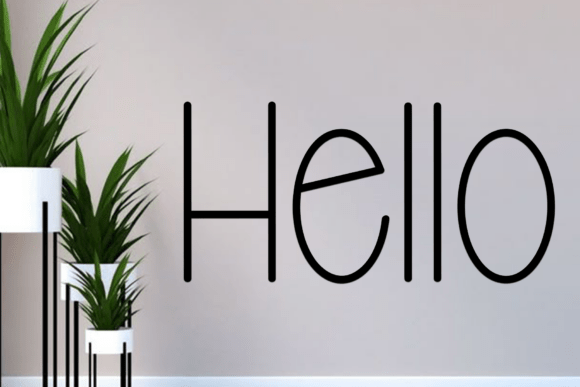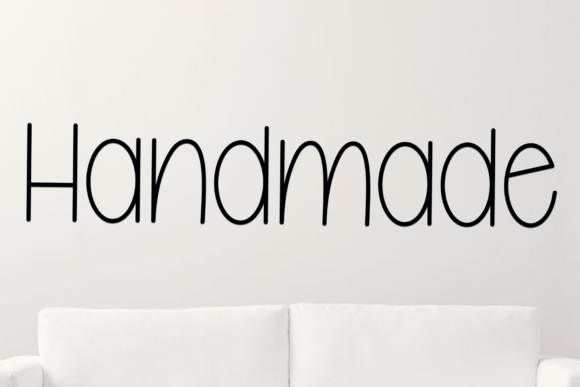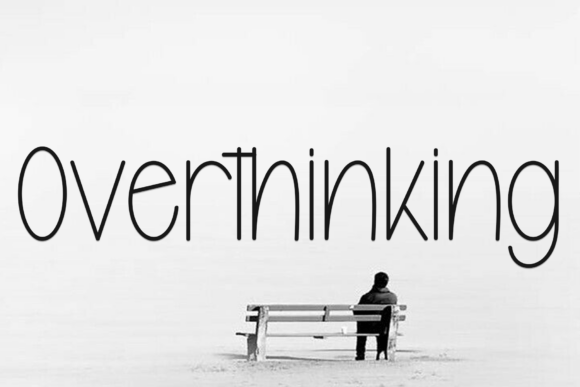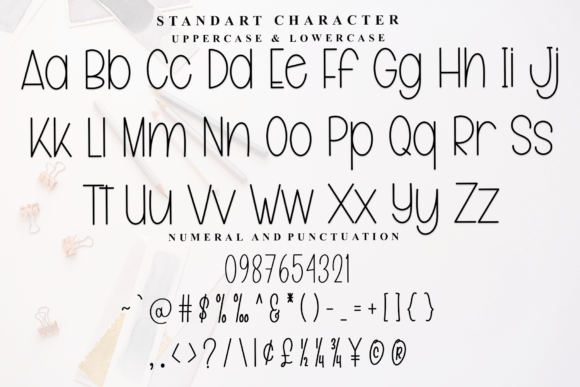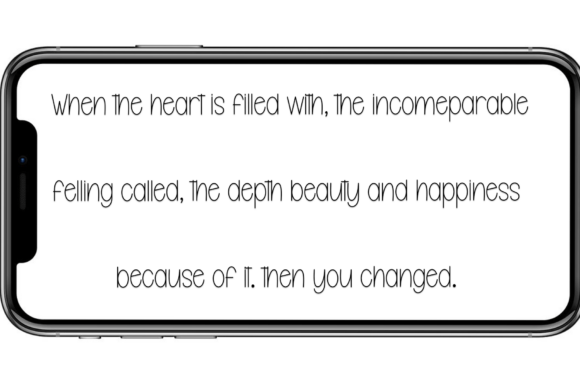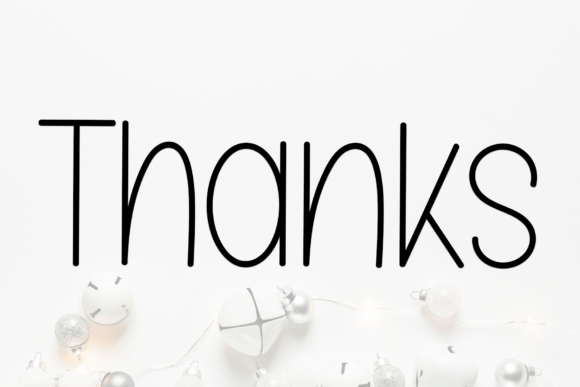
Better Alphabet Font: Add a Touch of Holiday Magic to Your Designs
The holiday season is upon us, and what better way to get into the spirit than with a festive and merry typeface? Look no further than the Better Alphabet Font, a decorative font that’s perfect for adding a touch of enchantment to your designs. With its whimsical flair and nostalgic ambiance, this font is sure to bring cheer to your holiday-themed projects.
A Festive Font for the Holiday Season
Better Alphabet Font is a beautifully crafted typeface that’s designed to capture the essence of the holiday season. Its decorative elements and whimsical flair make it perfect for a variety of design projects, from greeting cards and gift tags to holiday-themed posters and social media graphics. Whether you’re a designer, crafter, or simply someone who loves the holiday season, this font is sure to bring a smile to your face.
As a designer or crafter, you’re always on the lookout for unique and creative ways to make your projects stand out. Better Alphabet Font is the perfect solution. Its decorative elements and whimsical flair make it perfect for a variety of projects, including:
- Greeting cards: Add a touch of holiday magic to your greeting cards with this festive font.
- Gift tags: Make your gift tags extra special with this beautiful and decorative font.
- Holiday-themed posters: Create eye-catching posters for your holiday events or promotions with this festive font.
- Social media graphics: Add a touch of holiday cheer to your social media graphics with this whimsical font.
Bring a Cheerful and Nostalgic Ambiance to Your Words
Better Alphabet Font is more than just a decorative font – it’s an experience. With its whimsical flair and nostalgic ambiance, it’s sure to bring a cheerful and nostalgic feel to your words. Whether you’re creating holiday-themed designs or simply want to add a touch of magic to your typography, this font is the perfect choice.
Let Your Typography Shine
In conclusion, Better Alphabet Font is a beautiful and festive typeface that’s perfect for adding a touch of holiday magic to your designs. With its decorative elements, whimsical flair, and nostalgic ambiance, it’s sure to bring cheer to your holiday-themed projects. Whether you’re a designer, crafter, or simply someone who loves the holiday season, this font is a must-have. So why wait? Download Better Alphabet Font today and start creating your own holiday magic.